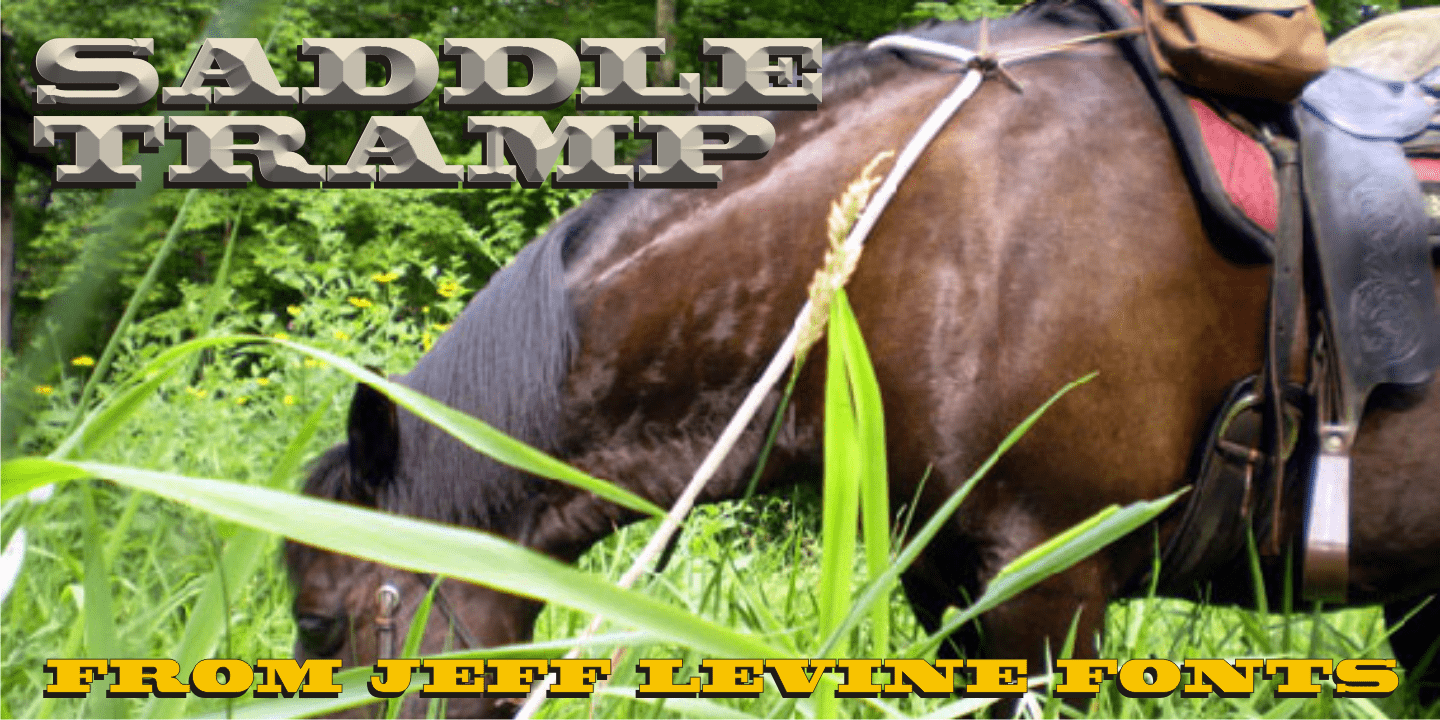
Saddle Tramp
The designer of wood type in the 1880s did not lack for inspiration or imagination. From extremely ornate designs to ultra compressed or condensed alphabets, there was no shortage of variety.
Saddle Tramp JNL is one such compressed font. It's wide, bold design coupled with it's squat appearance allows for multiple words in a headline without overuse of page space.